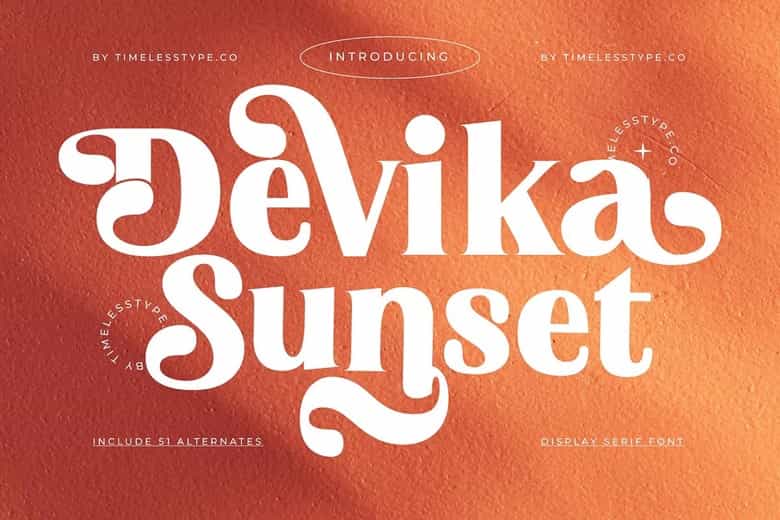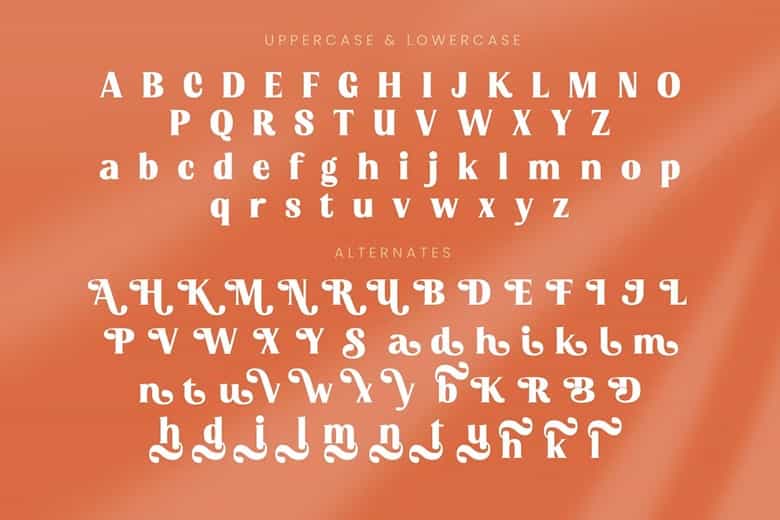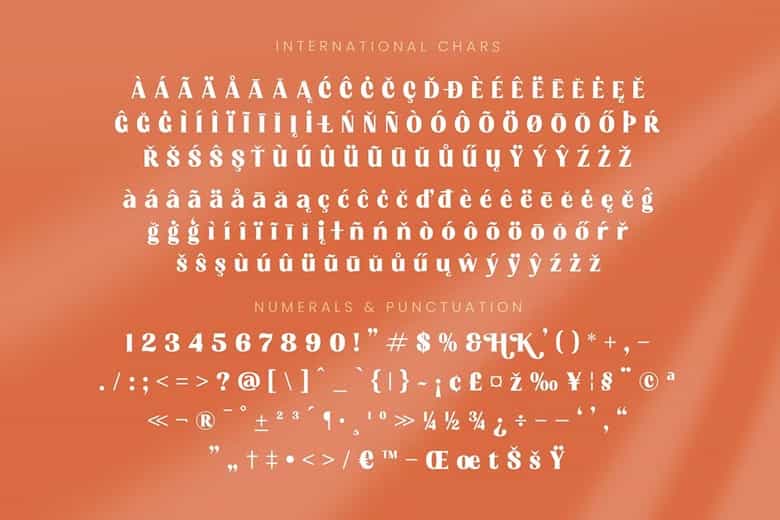
Devika Sunset is a modern display serif font from timelesstype.co that will add a vintage tone to every design that you use it for. Suitable for any projects such as: logos, branding projects, homeware designs, product packaging, posters, shopping bags, t-shirts, book covers, name card, invitation cards, greeting cards, label, special events and all your other luxury and beautiful projects.